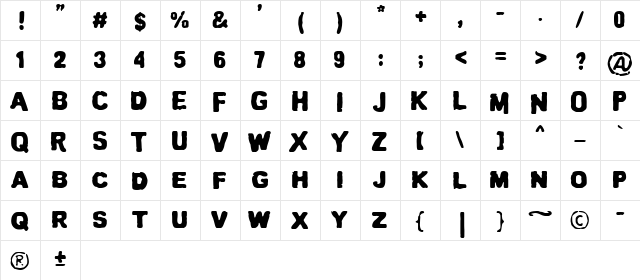
Melting Letter Bold
| Designer | Lettersiro 2018 |
Design Context for Melting Letter Typeface
Melting Letter is a composed and adaptable typeface that performs quietly and consistently across a wide range of design contexts. Its bold stroke weight gives it real presence on the page.